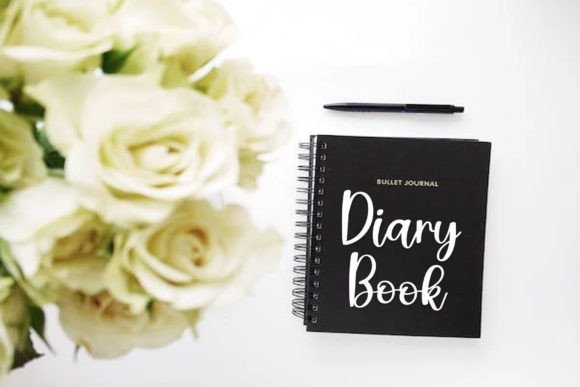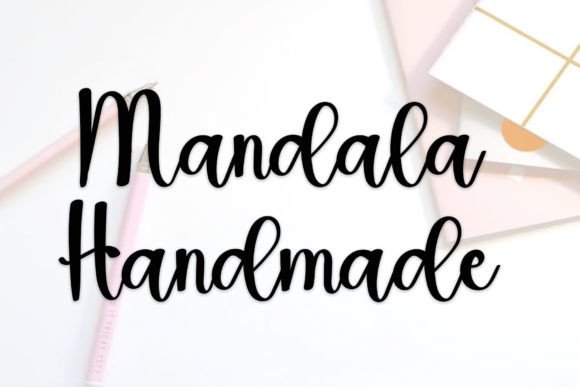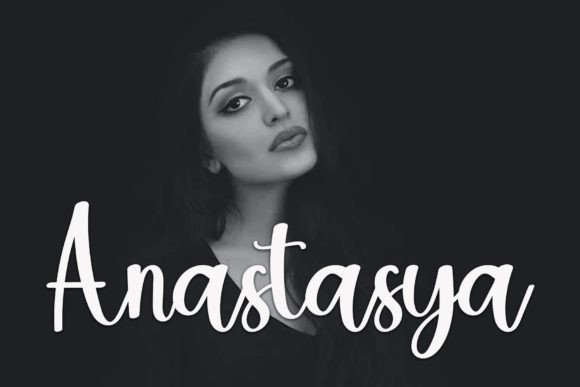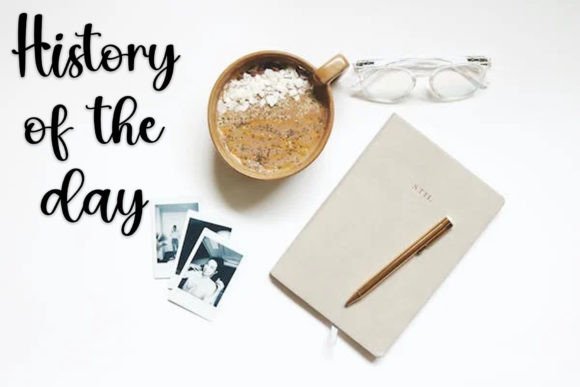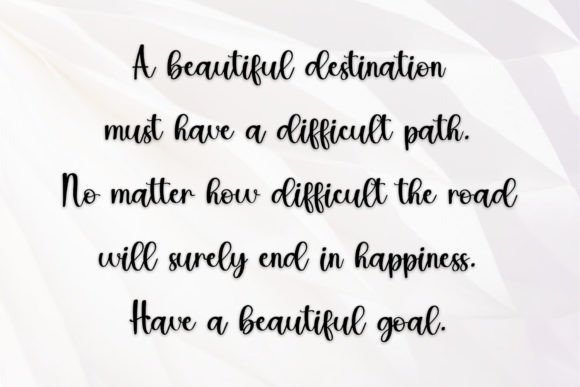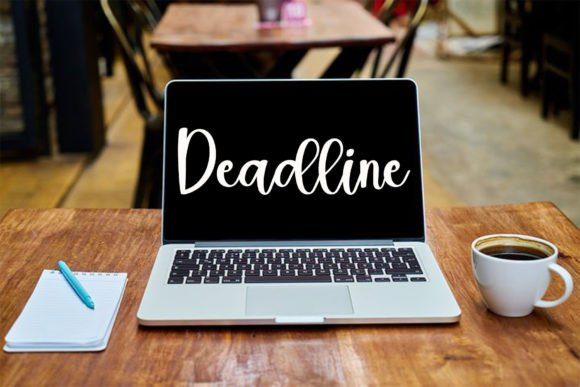
Discover the Elegance of Daily Space Font: Elevate Your Designs with a Timeless Touch
Are you on the hunt for a font that adds a touch of elegance and sophistication to your designs? Look no further than the Daily Space Font. This beautiful handwritten font is described by its elegant touch, making it perfect for a wide range of projects. From crafting stunning visual content to creating eye-catching titles, Daily Space Font is sure to fall into your heart with its incredibly distinct and timeless style.
The Characteristics of Daily Space Font
Daily Space Font boasts a unique and captivating aesthetic that sets it apart from other fonts. Its elegant touch is evident in its flowing lines, curves, and subtle variations in line width, giving it a humanized and approachable feel. This font is meticulously crafted to convey a sense of sophistication, making it an excellent choice for designers and crafters looking to add a touch of luxury to their work.
What Makes Daily Space Font Stand Out?
- Distinctive Style: Daily Space Font features an incredibly distinct style that is both timeless and versatile. Its elegant touch makes it perfect for a wide range of applications, from wedding invitations to branding materials.
- Handwritten with Love: This font is carefully crafted with a personal touch, giving it a unique and humanized feel that sets it apart from machine-generated fonts.
- Elegant and Sophisticated: Daily Space Font exudes elegance and sophistication, making it perfect for designers and crafters looking to create high-end visual content.
- Timeless Appeal: Unlike trendy fonts that quickly go out of style, Daily Space Font has a timeless appeal that ensures your designs will remain stylish for years to come.
Daily Space Font is an incredibly versatile font that can be used for a wide range of projects, including:
- Branding and Logo Design: Use Daily Space Font to create stunning logos and branding materials that exude elegance and sophistication.
- Wedding and Event Planning: Add a touch of luxury to your wedding invitations, menus, and other event materials with this beautiful font.
- Packaging Design: Use Daily Space Font to create eye-catching packaging designs that stand out on store shelves.
- Social Media and Blogging: Elevate your social media and blog content with Daily Space Font, perfect for creating stunning titles and visual content.
Tips for Using Daily Space Font
To get the most out of Daily Space Font, here are some tips to keep in mind:
- Pair it with Other Fonts: Experiment with pairing Daily Space Font with other fonts to create visually appealing combinations.
- Use it for Titles and Headings: Daily Space Font is perfect for titles and headings, adding a touch of elegance and sophistication to your designs.
- Experiment with Colors: Try out different colors and textures to add depth and interest to your designs featuring Daily Space Font.
In conclusion, Daily Space Font is a beautiful and elegant handwritten font that is perfect for designers and crafters looking to add a touch of sophistication to their work. With its incredibly distinct and timeless style, this font is sure to fall into your heart and become a staple in your design toolkit. So why wait? Discover the elegance of Daily Space Font and elevate your designs to new heights!